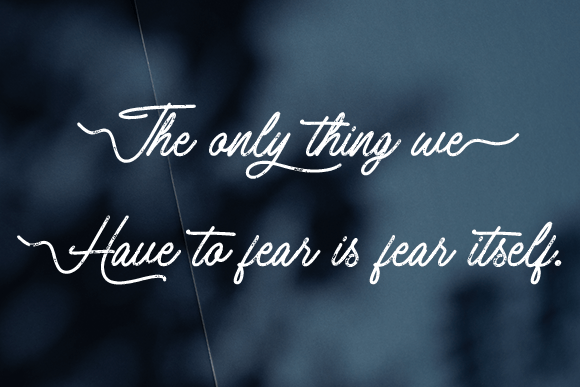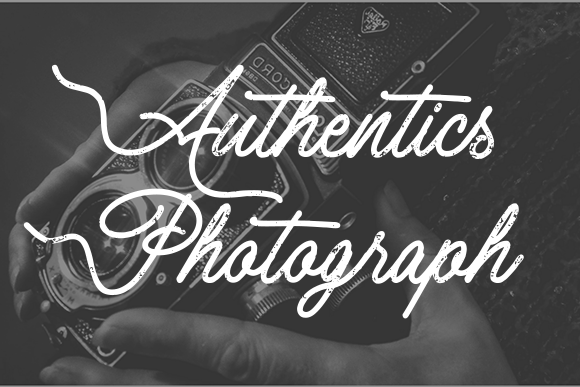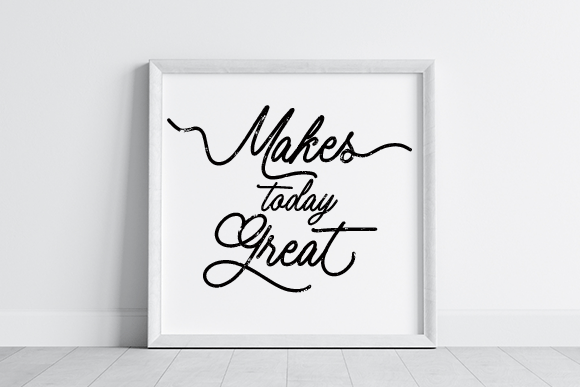
Introduction to Northem Celestial Font
Do you remember that moment when a single design element sparks a creative revolution? For designers, it’s often the subtle nuances that make all the difference. For us, that moment came when we stumbled upon the enchanting Northem Celestial Font – a collection of uniquely crafted brush script fonts that breathe new life into our creative projects.
As a valuable design resource, Northem Celestial Font offers an unparalleled style that effortlessly elevates prototypes, mesmerizes in promotional campaigns, and blends seamlessly into any creative endeavor. Whether you’re working on a high-quality design project or seeking the perfect font for your next free download, Northem Celestial Font is an indispensable tool that will leave a lasting impression.
With its transparent background and high-quality design, Northem Celestial Font is a game-changer for designers looking to take their creative project to the next level. In this article, we’ll delve into the world of Northem Celestial Font and explore what makes it an absolute must-have for any design enthusiast.
Key Features of Northem Celestial Font
- Unique Design: Northem Celestial Font offers a stunning celestial-inspired design, perfect for creative projects that require a touch of magic and wonder.
- High-Quality Typography: This font features high-quality typography, making it an excellent design resource for any project that demands precision and clarity.
- Transparent Background: The font includes a transparent background, allowing for seamless integration with any design element, from backgrounds to overlays.
- High Resolution: The font is designed at a high resolution (300 DPI), making it suitable for print and digital applications, from business cards to posters and social media graphics.
- Perfect for Creative Projects: Northem Celestial Font is ideal for designers working on creative projects, such as invitations, greeting cards, and advertising materials, that require a unique and eye-catching look.
Honest Review: Northem Celestial Font
I recently stumbled upon the Northem Celestial Font, and I must say it’s been a game-changer for my design projects. This high-quality font has been a fantastic addition to my design resource library.
- Beautiful, elegant design that adds a touch of sophistication to any creative project
- Transparency options for the background, making it perfect for layered designs
- Perfect for titles, headings, and any other design element that requires a touch of celestial magic
- Limited character set, which might not be suitable for lengthy texts
- No bold or italic variants, which could be a limitation for some designers
Overall, I’m thoroughly impressed with the Northem Celestial Font. Its unique design and transparent background options make it a valuable asset for any designer working on a creative project. While it may have some limitations, I believe it’s a fantastic resource that’s worth exploring.
Getting the Most Out of Northem Celestial Font
To get the most out of the Northem Celestial Font, use it in conjunction with a high-quality image or background. This will help the font stand out and create a visually appealing design. Additionally, consider using a transparent background to create a sense of depth and dimension.
The Northem Celestial Font is ideal for use in a variety of creative projects, including:
- Infographics and data visualizations
- Logo design and branding
- Wedding invitations and event promotions
- Blog posts and articles
Yes, the Northem Celestial Font has a transparent background, making it perfect for creative projects that require a high level of design flexibility. This feature allows you to easily layer the font over different backgrounds and images.